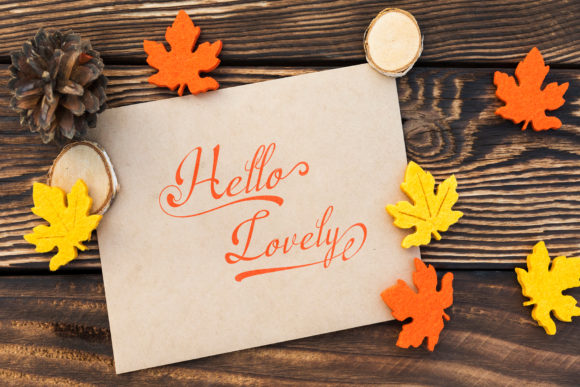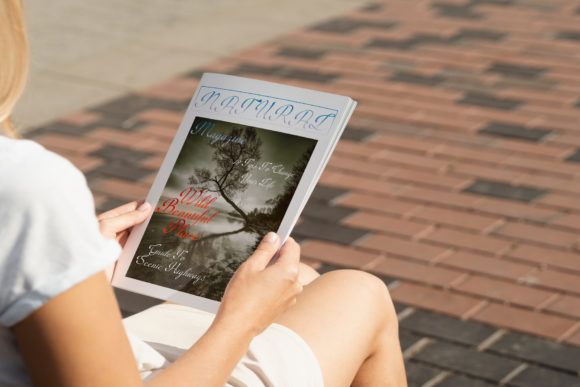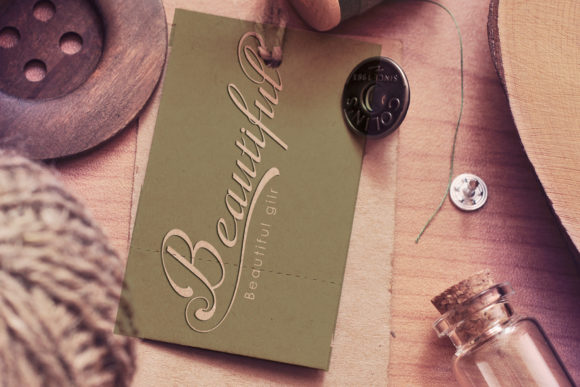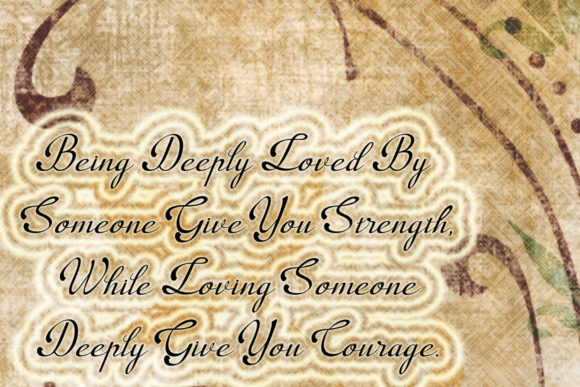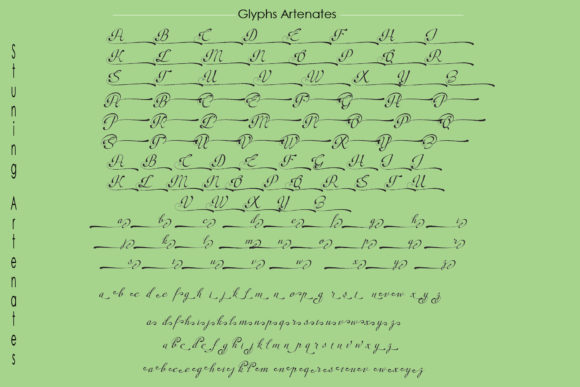
HomeScript FontsSalmelia Font Script Fonts Salmelia Font FacebookXPinterestWhatsApp Salmelia Font Poster 2 Salmelia Font Poster 3 Salmelia Font Poster 4 Salmelia Font Poster 5 Salmelia Font Poster 6 About Salmelia Font Salmelia is a sweet and cool handwritten font with a bold vibe. Get inspired by its unique style! DOWNLOAD ON CREATIVE FABRICAThis font is sold and delivered by Creative Fabrica. Font Canyon may earn a commission if you buy through this link. People also explored Break a Leg Font Update Font Brittaney Font Carolina Smile Font Creative Workshop Font Amsterdam Signature Font Gain Momentum Font Higuey Matteo Font Simple Plan Font 361 0 TagsSalmelia Font Previous articleApplebutter FontNext articleWinter is Coming Font LEAVE A REPLY Cancel reply Comment: Please enter your comment! Name:* Please enter your name here Email:* You have entered an incorrect email address! Please enter your email address here Website: Save my name, email, and website in this browser for the next time I comment. Personal Use Free Shrag Script Personal Use Free Read more about this font Deco Neue Wilde Personal Use Free Read more about this font Arc Personal Use Free Read more about this font Hillgates Personal Use Free Read more about this font BLOG Exploring Font Trends Shaping Communication in the Digital Era Fonts, like all design elements, are subject to trends. They play a crucial role in communicating a brand's personality,... Top 7 Google Fonts Alternatives for Faster and Privacy-Friendly Web Design (2025) Elegant Wedding Invitation Fonts – Handwritten & Script Fonts Using Fonts in Digital Marketing: Tips to Strengthen Your Brand Identity